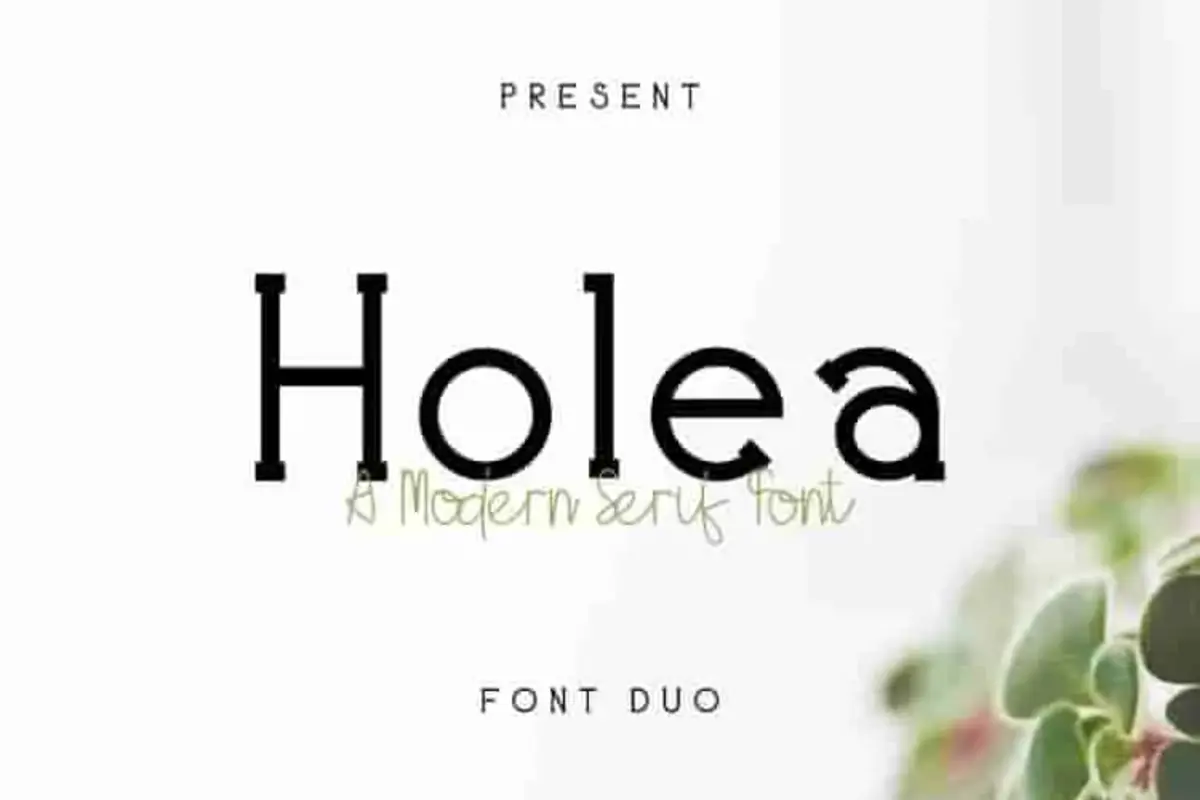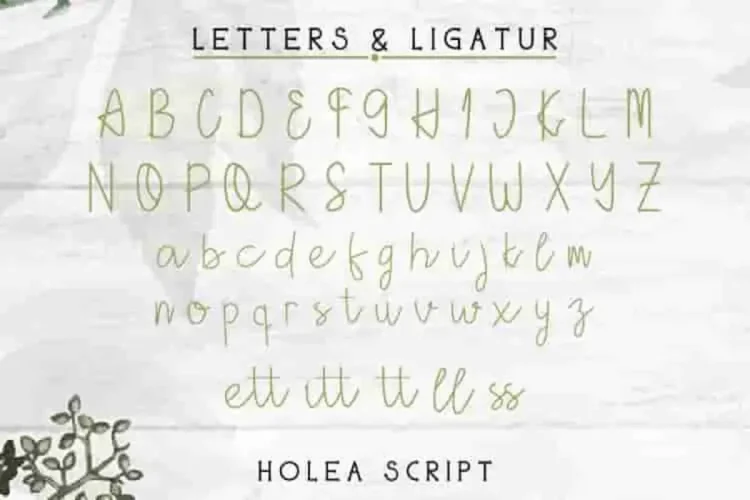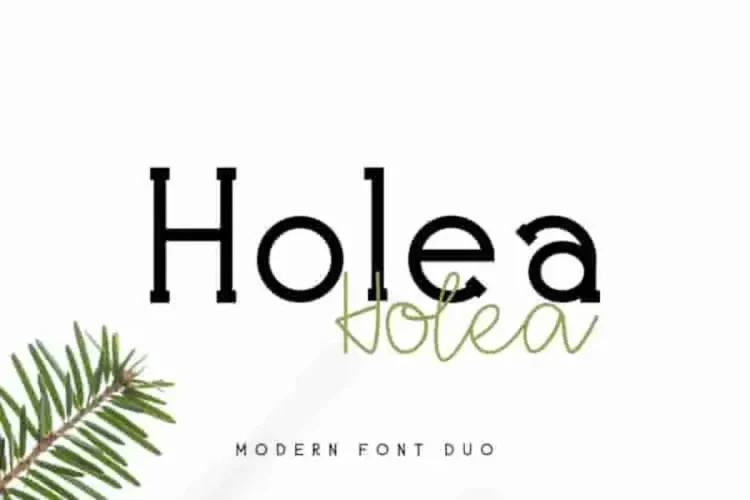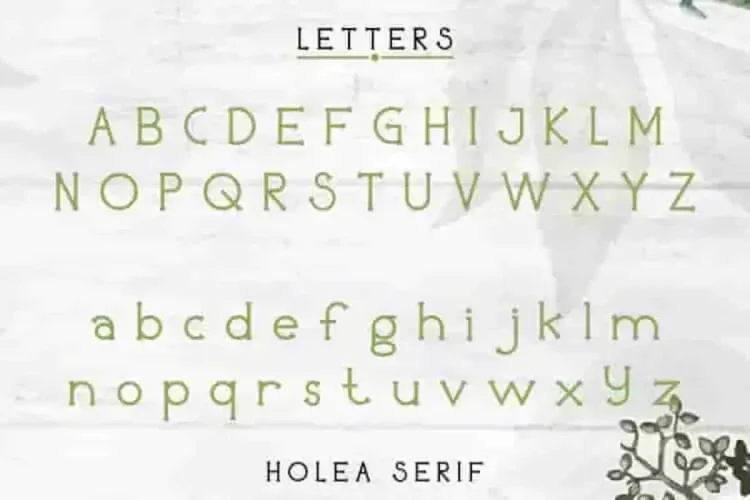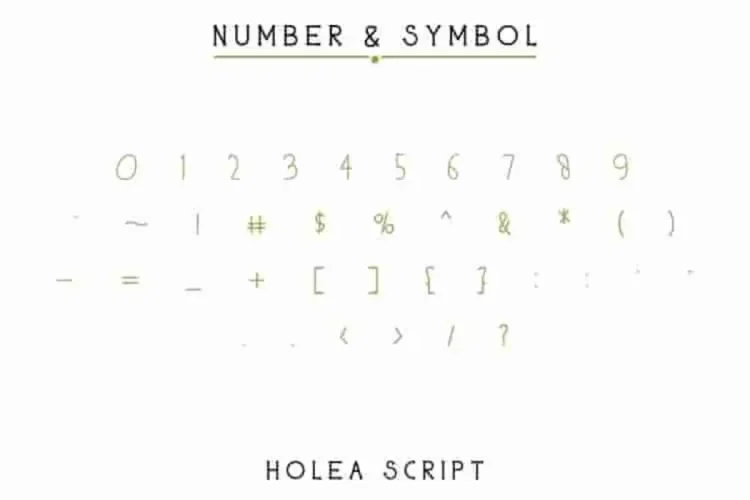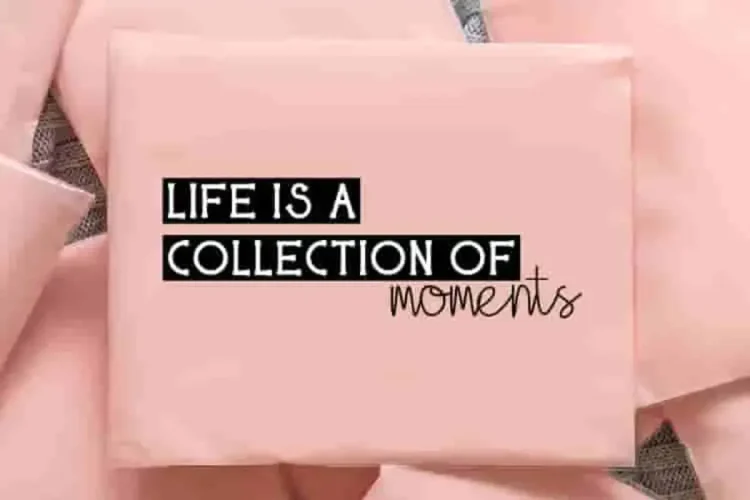
Holea Sans Script Fonts Duo
Hi Everyone! It’s good to be back, Introducing our newest font : Holea! It’s a FAMILY FONTS consist of Regular Sans, Script, Light, Gradient, and Bold.This is a new modern family font with stylish glyph.
💎 5 Distinctive Styles. One Cohesive Look.
Holea isn’t just one font—it’s a complete font family designed for flexibility and harmony. Each style offers a different personality, giving you tools to create consistent, yet dynamic visuals across your brand assets:
• Regular – Clean and timeless, this style is perfect for body text, modern logos, or packaging that needs legibility and structure.
• Light – Soft and delicate, great for elegant branding, editorial headers, or feminine-focused visuals.
• Bold – Thick and commanding, ideal for attention-grabbing headlines, sale banners, or modern restaurant menus.
• Gradient – A display standout with horizontal line detailing that adds a sense of depth and uniqueness. Perfect for signage, posters, or experimental branding.
• Script – The heart of creativity. This playful, handwritten-style script brings character, emotion, and charm to invitations, quotes, or boutique branding.
• Together, these styles form a powerful design system—balanced and beautiful in any layout.
🎨 Where Holea Shines:
Holea will be Great for branding, logo, stationery, business card, invitation, flyer, brochure etc. There are many industries that is suitable for this font : food, supermarket, retails, clothing, salon, interior, furniture, real estate, sales, law firm, agency, marketing etc . It is so elegant, classy, light and beautiful.
✨ Why Choose HOLEA?
• Stylish & Versatile: Perfect for fashion, food, beauty, supermarket, interior design, agency, marketing, real estate, and more.
• Ideal for Print & Digital: Use it for branding, logos, brochures, invitations, packaging, signage, and social media content.
• Multilingual Support.